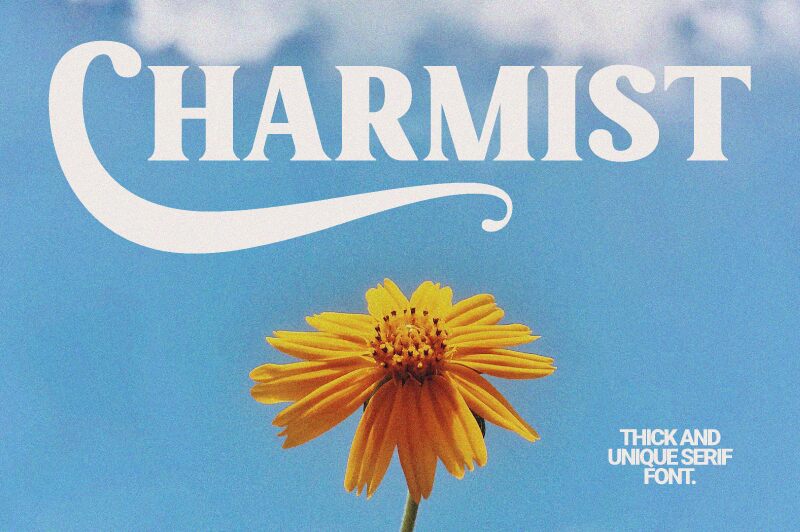
Charmist, the ultimate serif font designed by Prioritype Co, comes in bold weight to make your projects stand out. It's perfect for giving your designs an elegant and classic look. The smooth curves and sharp edges of Charmist create a visually appealing balance that will enhance the readability of any text. Suitable for both digital and print design projects, Charmist is ideal for creating impactful logos, headlines, titles, invitations, and other branding materials. Use Charmist to bring sophistication to your project while maintaining a touch of modernity. Let this semi-bold font become the charm that elevates your designs to the next level!